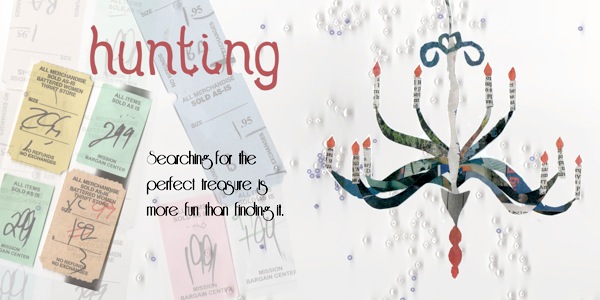
Chelsea Weaver
Chelsea Weaver (Portland, OR and before that, Camarillo, CA) studied graphic design at California State University Channel Islands. She designed Newspaper (2012, an experimental typeface) and Piri Piri (2013, a curvy display typeface). |